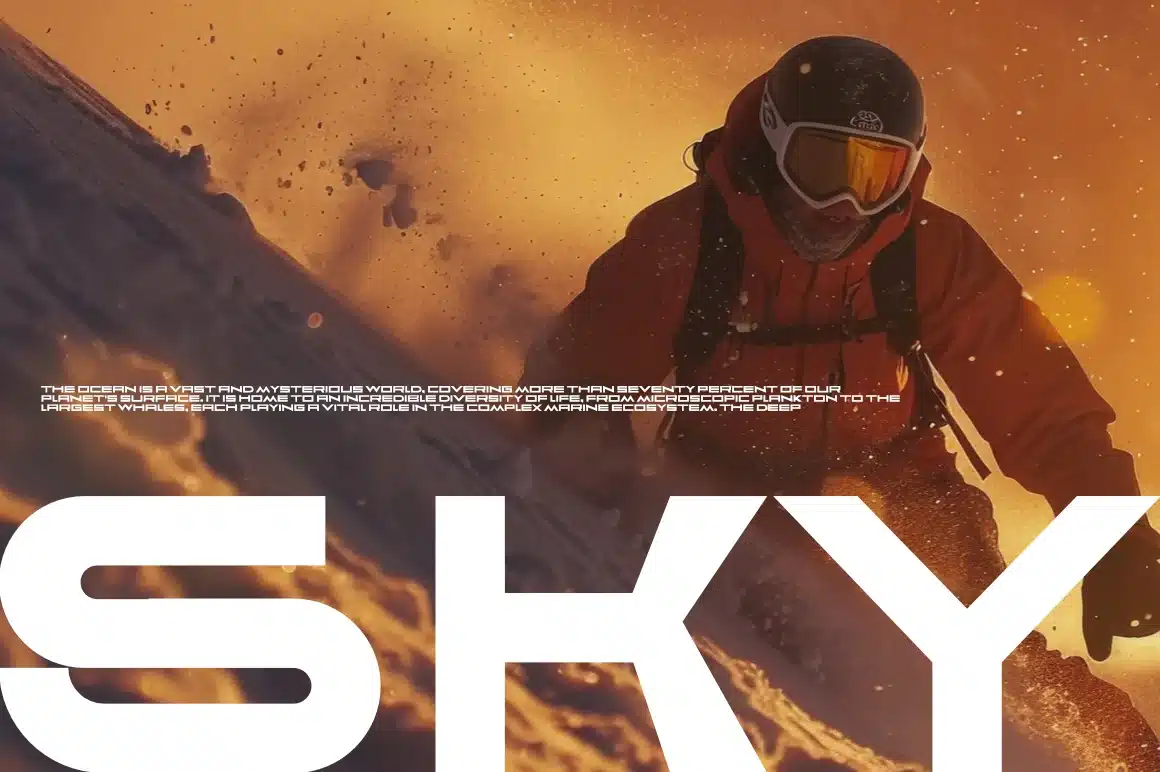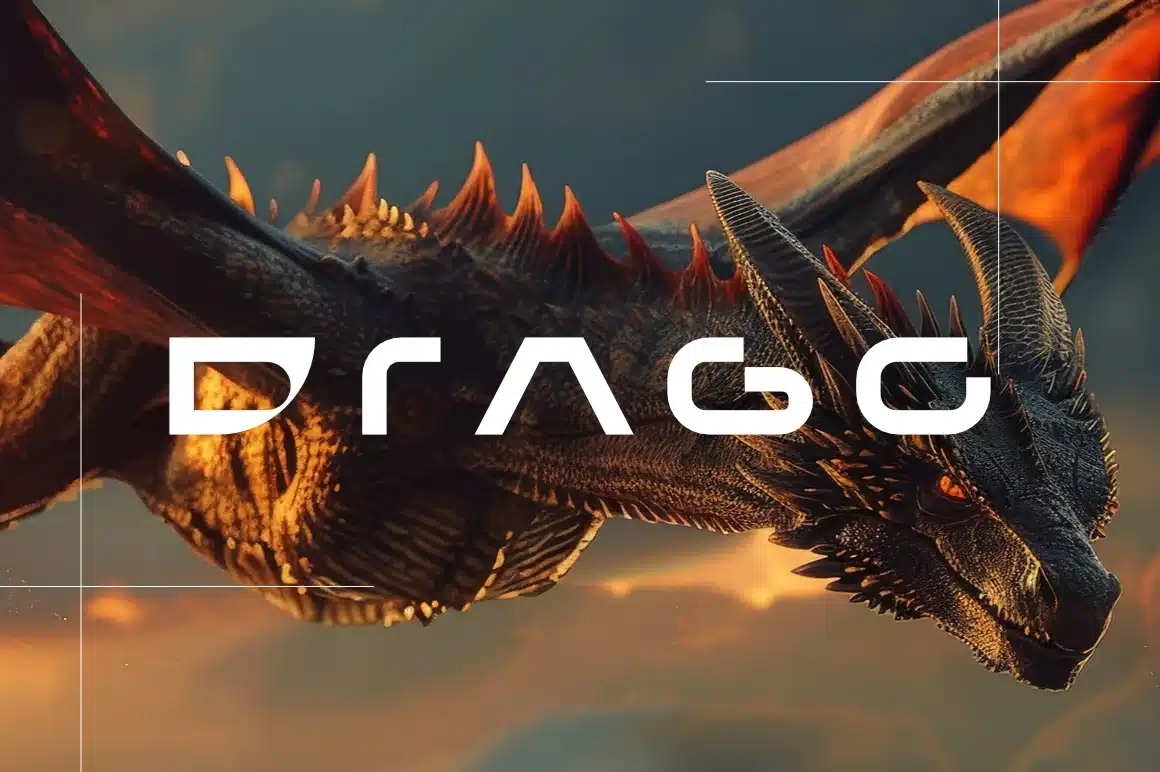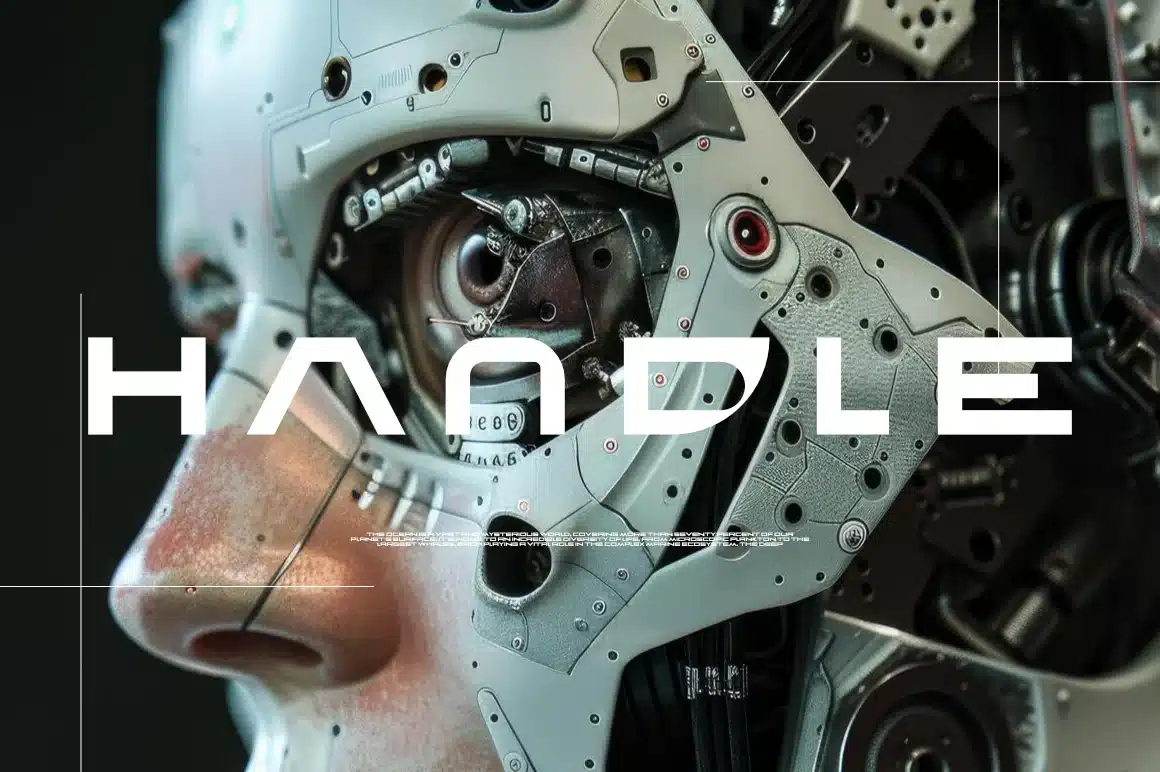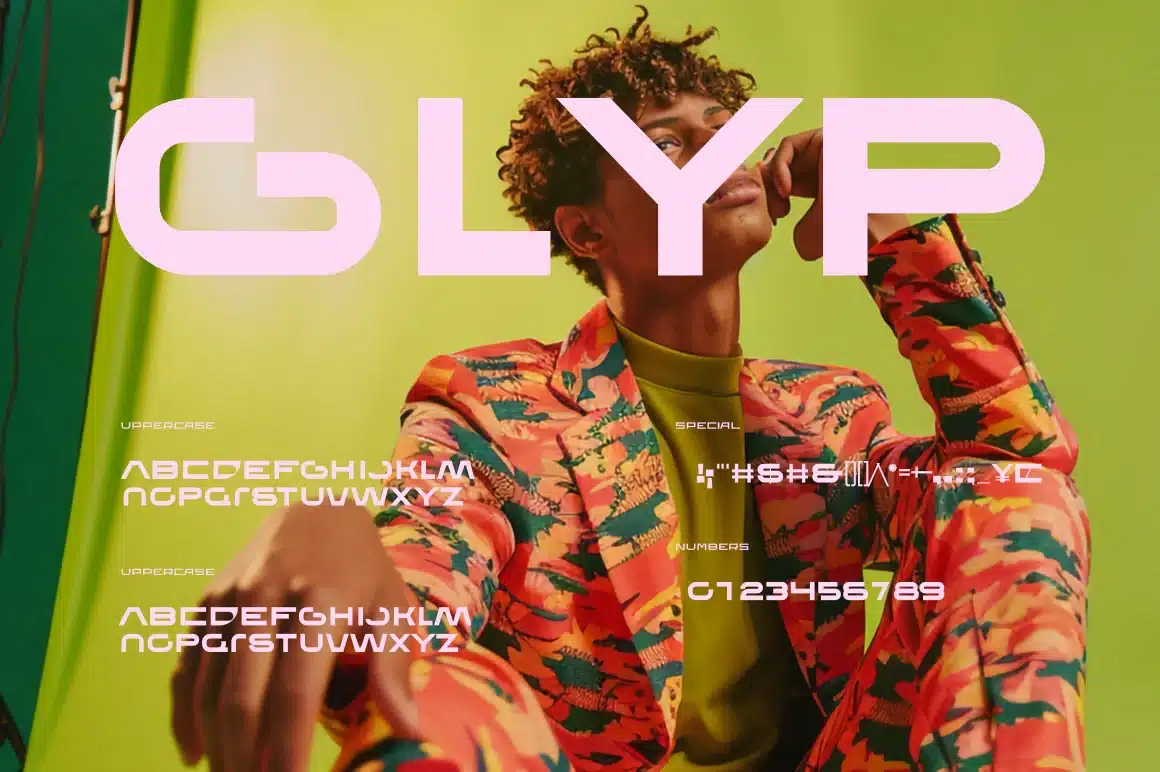
Exframe Font
By discarding the decorative flourishes of the past, it creates a visual environment that feels breathable and incredibly efficient. for a narrative, using wide spacing or dramatic proportions to tell you exactly how to feel before a single actor appears. Whether they evoke the cold, lonely silence of a spacecraft or the gritty, neon-soaked tension of a thriller, these letters carry a theatrical weight.